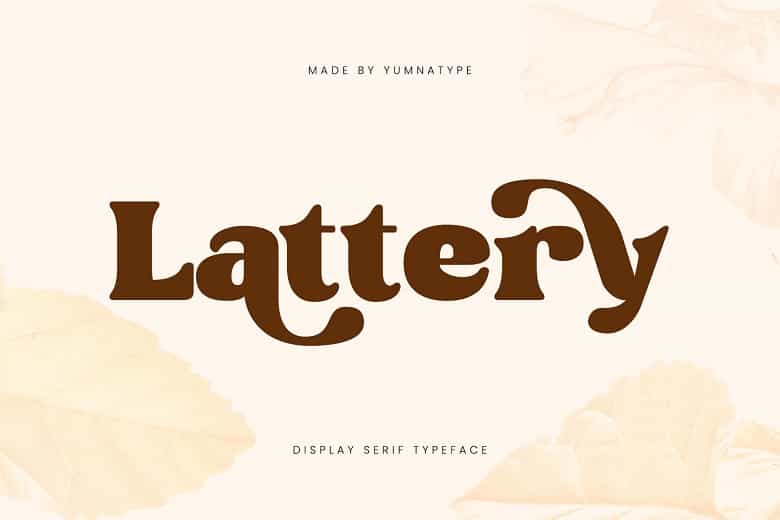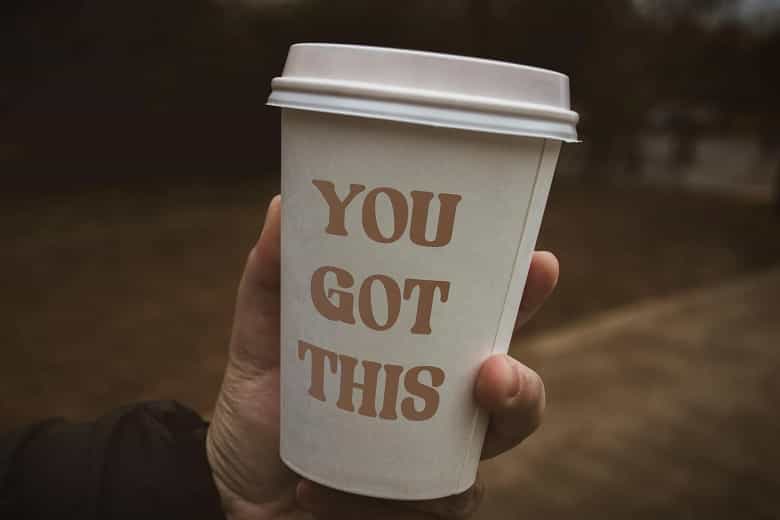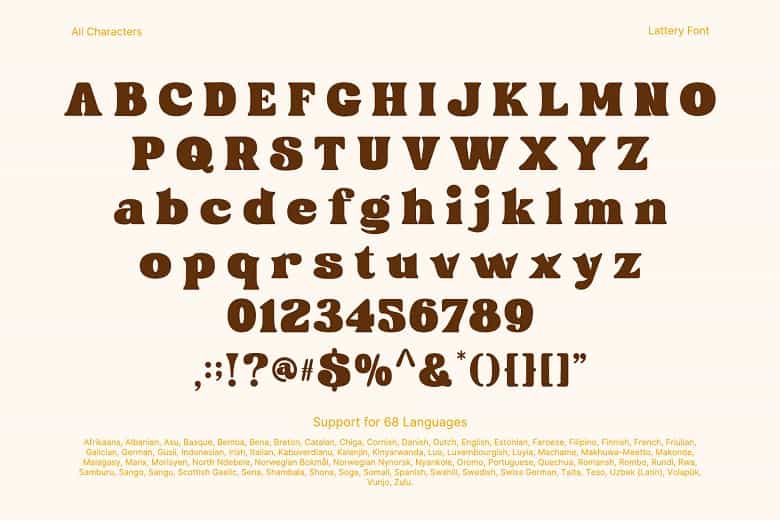
Lattery is a display serif font that is rather assertive and can easily be used to grab the viewer’s attention. Lattery is a font with each of its characters created in the round forms that give a certain tenderness to your text.